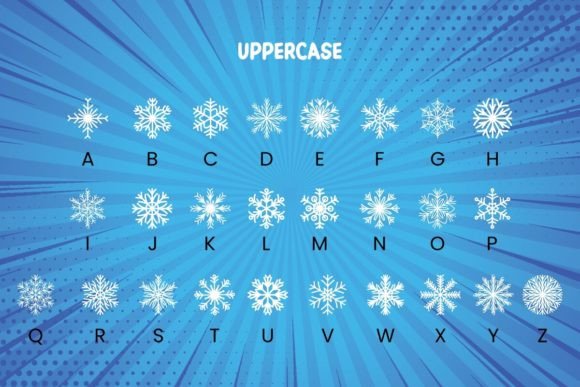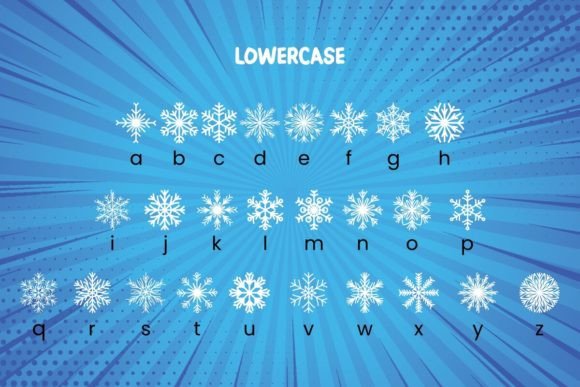
Introduction to Simple Snowflake Font
Simple Snowflake is a cool and playful dingbats font that adds a creative touch to your designs with winter theme.
Simple Snowflake lets you unleash your creativity and bring your designs to life with its vibrant and whimsical doodles .
Why Choose Simple Snowflake Font?
Simple Snowflake Font offers exceptional quality and versatility, making it a valuable addition to your design toolkit. Whether you’re creating for personal projects or commercial use, Simple Snowflake Font delivers professional results.